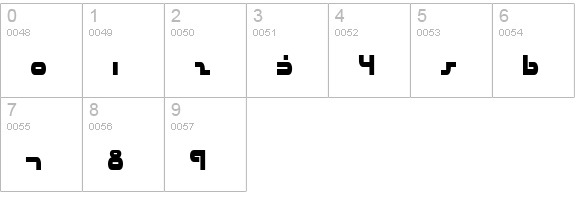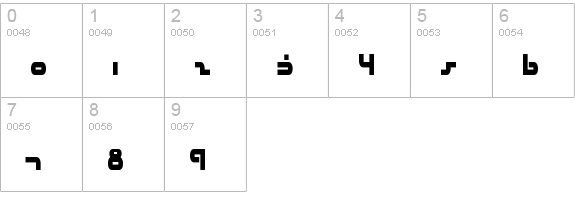
uni-sol condensed is a distinctive, condensed-width variant in the uni typeface family \xE2\x80\x94 well suited to design and typography projects.
Uni-Sol Condensed Font is a stunning display font that exudes sophistication and modernity. Its sleek and streamlined design makes it perfect for a wide range of projects, from branding and packaging to editorial and digital designs. With its condensed form, Uni-Sol Condensed Font is able to fit more text into a limited space without compromising legibility or style. The versatility of Uni-Sol Condensed Font is further enhanced by its extensive character set, which includes uppercase and lowercase letters, numerals, punctuation marks, and a variety of special characters. This font is meticulously crafted to ensure smooth and seamless readability across different platforms and devices. What sets Uni-Sol Condensed Font apart is that it is not only visually appealing, but also freely available to download at FontsMarket.com. This means that you can effortlessly incorporate this remarkable font into your projects without any additional cost. Whether you are a professional designer or an aspiring creator, Uni-Sol Condensed Font offers you the opportunity to elevate your designs with a touch of elegance and sophistication. Download Uni-Sol Condensed Font today from FontsMarket.com and unlock a world of possibilities. From eye-catching headlines to captivating body text, this font is sure to make a lasting impression. Embrace the freedom of creativity and take your designs to new heights with Uni-Sol Condensed Font.